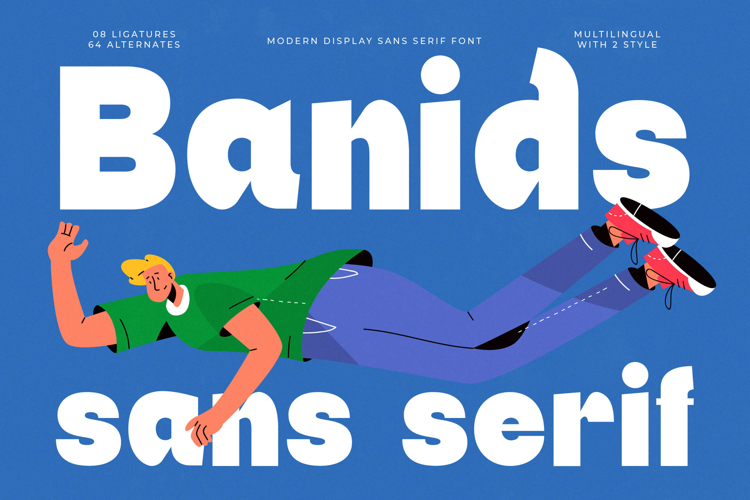
Banids - Modern Display Sans Serif Font
Elevate your visual communication with Banids - Modern Display Sans Serif Font, a typeface meticulously crafted for compelling impact. This modern display sans serif exudes a confident and sophisticated presence, perfect for projects demanding immediate attention. Its clean lines and generous proportions ensure readability while maintaining a distinctly bold aesthetic, making every word resonate with authority and style.
Unlock unparalleled creative potential with Banids - Modern Display Sans Serif Font, offering a rich toolkit of 8 ligatures and 64 alternates across two distinctive styles. These extensive features provide designers with remarkable typographic flexibility, allowing for truly unique branding and personalized expressions. Achieve a distinctive look that sets your designs apart, fostering memorable visual experiences.
With its extensive multilingual support, Banids - Modern Display Sans Serif Font adapts seamlessly across global markets, making it incredibly versatile for international projects. This comprehensive language coverage ensures your message maintains its intended impact and professionalism, regardless of the target audience or region. Trust Banids - Modern Display Sans Serif Font to deliver clarity and style across every border.